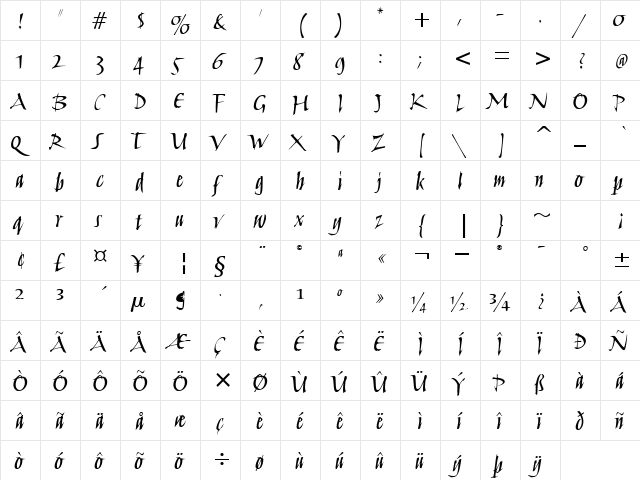
Humana Script Md ITC TT Medium
Design Context for Humana Script Md ITC TT Typeface
Humana Script Md ITC TT brings a calligraphic fluidity to the page — its connecting strokes and expressive curves give it an unmistakably human quality.
Font Pairing: Combine Humana Script Md ITC TT with a simple geometric sans for maximum contrast — the tension between flowing curves and clean structure is a classic typographic pairing.
Pro Tip: Pair Humana Script Md ITC TT with a clean sans-serif for supporting text. The contrast between fluid script and geometric structure creates an elegant typographic hierarchy.